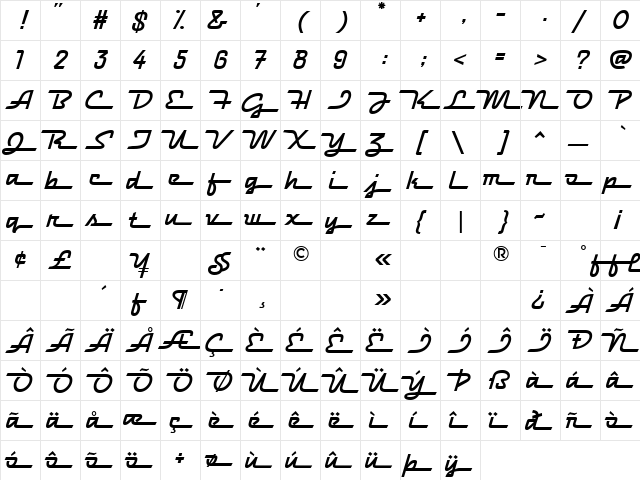
Hood Ornament Regular
Design Context for Hood Ornament Typeface
Hood Ornament is built around its visual character rather than neutral utility — its distinctive forms are designed to make an impression at display sizes.
Font Pairing: Pair with a clean neutral sans-serif for body copy to let Hood Ornament's character lead without overwhelming the composition.
Pro Tip: Treat Hood Ornament as the centrepiece of your typographic hierarchy. One strong heading set in a decorative face can carry an entire layout.